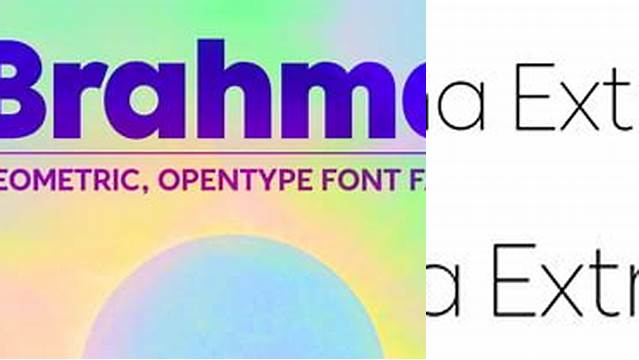
Hey guys! Are you looking for a font that's both elegant and easy on the eyes? Let me introduce you to the Brahma Extra Light font! It's a fantastic choice for a variety of design projects, offering a clean and modern aesthetic. In this comprehensive guide, we'll dive deep into everything you need to know about the Brahma Extra Light font, including how to snag a free download, explore its unique features, and discover the best ways to use it in your designs. So, buckle up, and let's get started!
What is the Brahma Extra Light Font?
First things first, what exactly is the Brahma Extra Light font? This font belongs to the Brahma family, known for its versatility and clean lines. The "Extra Light" designation means it features a delicate weight, making it ideal for headings, titles, and anywhere you want a touch of sophistication without overwhelming the design. The Brahma Extra Light font is a sans-serif font, meaning it doesn't have those little strokes or "serifs" at the ends of the letters. This gives it a modern and minimalist look that's perfect for contemporary designs. The font's design emphasizes legibility and readability, ensuring your text is easily understood even at smaller sizes. The Brahma font family's other weights are available, ranging from light to bold, allowing for a wide range of design flexibility. This font is well-suited for various applications, from website design and branding to print materials. For example, imagine using it on a sleek website to showcase your brand's values or in a brochure to create a clean and professional feel. If you're aiming for a sophisticated yet approachable look, the Brahma Extra Light font is a great choice! The font is versatile, making it suitable for use in various projects, including both print and digital media. When choosing a font, it's always a good idea to test it out in your designs to see how it looks with your specific content and layout. This font can be the perfect addition to your design toolkit, and you'll be able to produce amazing designs.
So, what makes the Brahma Extra Light font stand out? Let's take a look at some of its key features and characteristics that make it a favorite among designers. First off, its extra light weight is a major selling point. This delicate weight creates a sense of airiness and elegance, making it perfect for headlines, titles, and short snippets of text that you want to highlight. The thin strokes of the characters give it a modern and sophisticated feel. Its legibility is another key feature. Despite its light weight, the font is designed to be highly readable, even at smaller sizes. This makes it a great choice for body text in some applications, such as website descriptions or short paragraphs. Its clean and minimalist design is another characteristic worth mentioning. The font's sans-serif style and simple letterforms create a visually appealing design. This minimalist aesthetic makes the font extremely versatile and suitable for a wide range of design projects. Also, the font has a good kerning, meaning that the spacing between characters is well-balanced and aesthetically pleasing. Proper kerning contributes to the overall readability and visual harmony of the text. Finally, the Brahma Extra Light font offers a touch of versatility, while being more suitable for titles and headings. You can combine the Brahma Extra Light font with other fonts to create a well-balanced design with visual contrast. You could pair it with a bolder font for headings to make them pop. When using the Brahma Extra Light font, it's essential to consider the overall design and how it complements the other elements on the page. This font works well in various design contexts, from website design and branding materials to print materials like brochures and posters. You can create visually appealing and professional designs by choosing the Brahma Extra Light font for your project. With its unique characteristics and style, you can add a touch of sophistication to your designs.
How to Use Brahma Extra Light in Your Designs
Now that you've got the Brahma Extra Light font free download and have a feel for its characteristics, let's talk about how to use it effectively in your designs. This font is incredibly versatile, but here are some tips to get you started! First off, consider using it for headings and titles. The extra light weight is perfect for creating eye-catching headlines that draw the reader's attention. It's best for short phrases or single words. Also, you can use the font for website design. When it comes to websites, the Brahma Extra Light font can be used to add a touch of elegance. It's great for navigation menus, website headers, and call-to-action buttons. Additionally, you can apply it for branding materials. For branding, use the font to create a consistent look across all your materials. You could use it on your logo, business cards, and other marketing materials. Pairing fonts is important. Pairing this font with a contrasting font is a great way to add visual interest to your designs. You could use the Brahma Extra Light font for headings and a bolder font for body text. You can always experiment with different font pairings to find what works best for your project. Consider the context. Think about the overall tone and style of your design. The Brahma Extra Light font works well in modern, minimalist designs. Make sure it aligns with your overall brand and message. Use it sparingly. Don't overuse the font. It's best to use it for key elements like headings and titles. Overusing it can make your design feel cluttered. Adjust the size and spacing. Adjust the font size and letter spacing to ensure readability. You may need to increase the letter spacing for larger headings. These adjustments can improve its overall appearance. By following these guidelines, you can create designs that are both visually appealing and effective. When you use this font, make sure it is in harmony with other design elements.
Best Practices and Design Tips
Alright, let's talk about some best practices and design tips to make the most of the Brahma Extra Light font. Here are a few things to keep in mind, guys. First, remember to ensure readability. While the font is beautiful, it's essential to prioritize readability. Avoid using it for large blocks of text. If you are using it for longer texts, ensure the font size is large enough for easy reading. Next up is the font pairing. Experiment with different font pairings to create visual interest. Combine the Brahma Extra Light font with a bolder or more contrasting font to create a dynamic look. Another tip is to pay attention to the contrast. Ensure there's enough contrast between the text color and the background. This will make the text easier to read. Also, make sure to consider the context. Always adapt the font and design to suit your audience and the project's purpose. When working with this font, you can always experiment with different sizes and weights. Although the extra light weight is the most popular, try other weights in the Brahma family to find the best fit for your design. Another good tip is to optimize for different devices. If you're designing for the web, make sure your font looks good on all devices and screen sizes. In addition, use it in moderation. Don't overcrowd your designs with too much text. Use the font strategically to create a balanced and visually appealing layout. Finally, test your designs. Always test your designs with different audiences to ensure they are effective. By keeping these tips in mind, you can create beautiful and effective designs that make the most of the Brahma Extra Light font. Remember, practice makes perfect, so don't be afraid to experiment and find what works best for you.
Where to Find Inspiration and Examples
Need some inspiration? Let's explore where you can find awesome examples of the Brahma Extra Light font in action! There are tons of places to get inspired and see how other designers use this fantastic font. Here are a few places you can check out: First, browse design websites. Websites such as Behance and Dribbble are great resources for finding design inspiration. You can search for projects that use the Brahma font to see how other designers are using it. Also, it is important to check out brand websites. Many brands use the Brahma font on their websites. Keep an eye out for these websites. Also, look at design blogs and articles. Design blogs and articles often showcase great font pairings and design tips. You can find some fantastic ideas and examples of how to use this font on these websites. Pinterest is a great platform to gather design ideas. Search for "Brahma Extra Light font" to find boards with inspiring examples. Also, look at design portfolios. Check out design portfolios from designers and agencies. Many designers showcase their projects, and you can often see how the Brahma font is used in their work. Social media is a great source for design inspiration. Follow designers and design accounts on social media platforms like Instagram and Twitter. They often share their work and insights on font usage. When searching for inspiration, pay attention to how the font is used in different contexts. Notice how the font is paired with other fonts and how the overall design elements contribute to the look and feel. By exploring these resources, you can find plenty of inspiration and learn how to use the Brahma Extra Light font to its full potential.